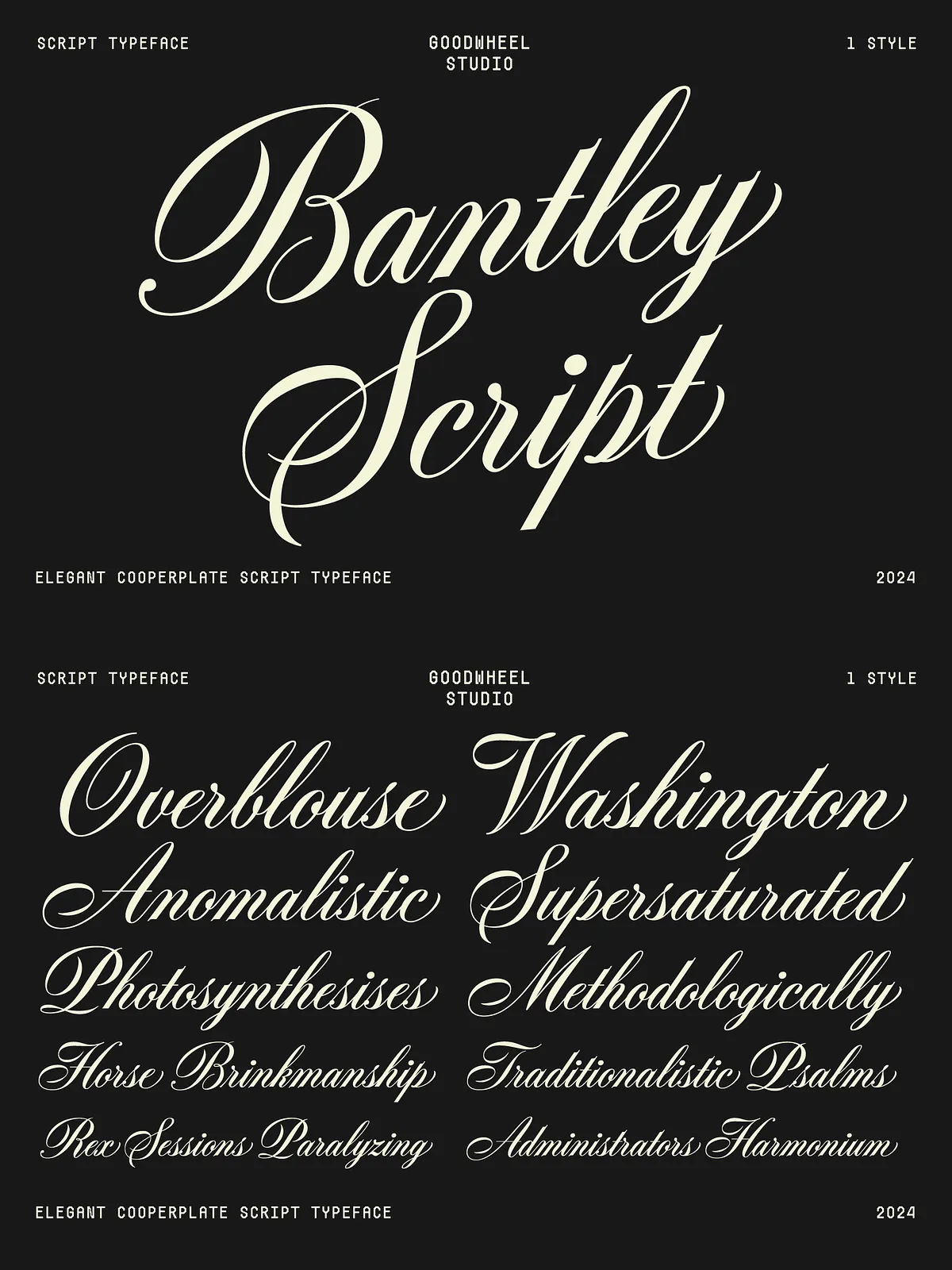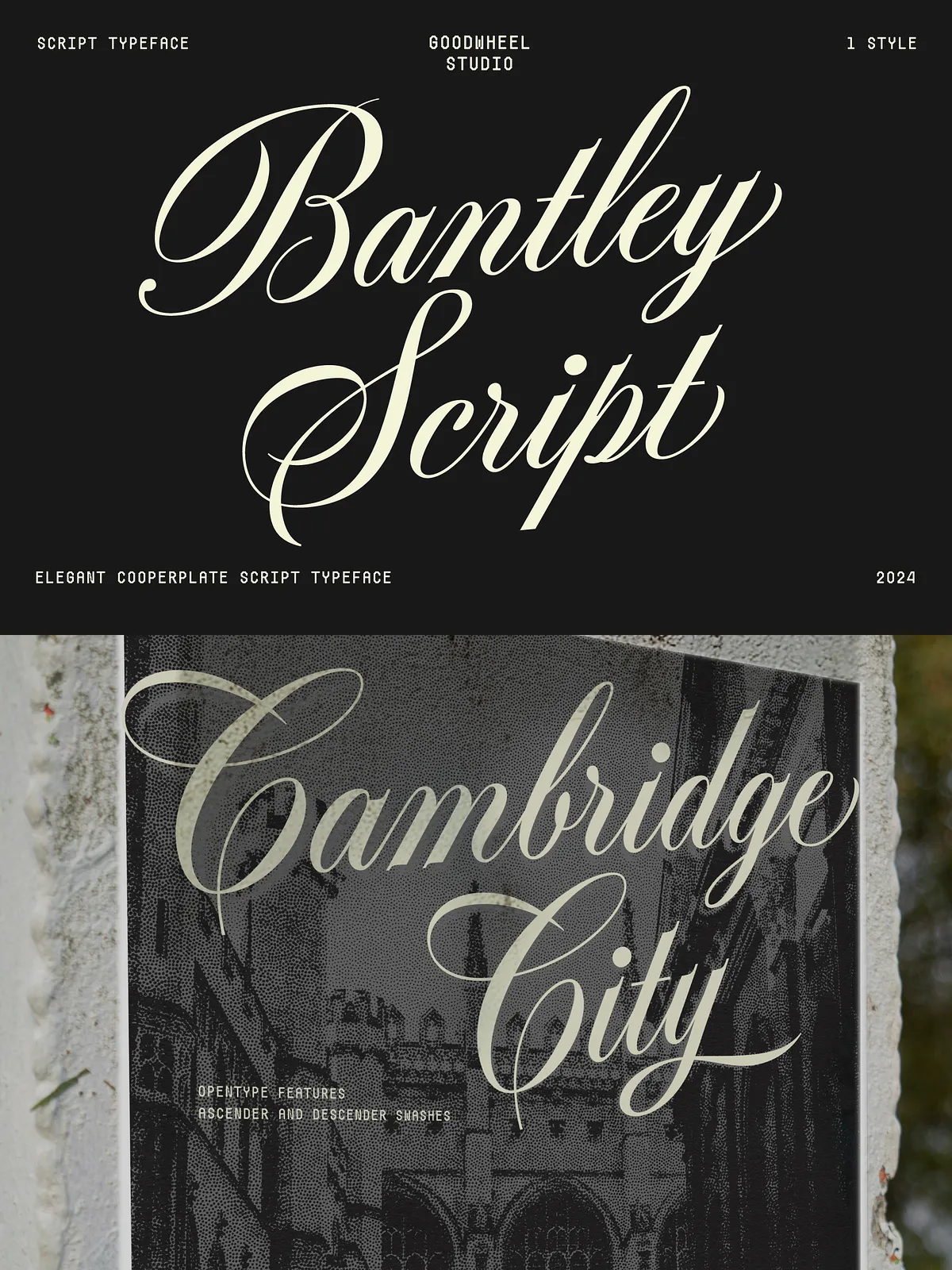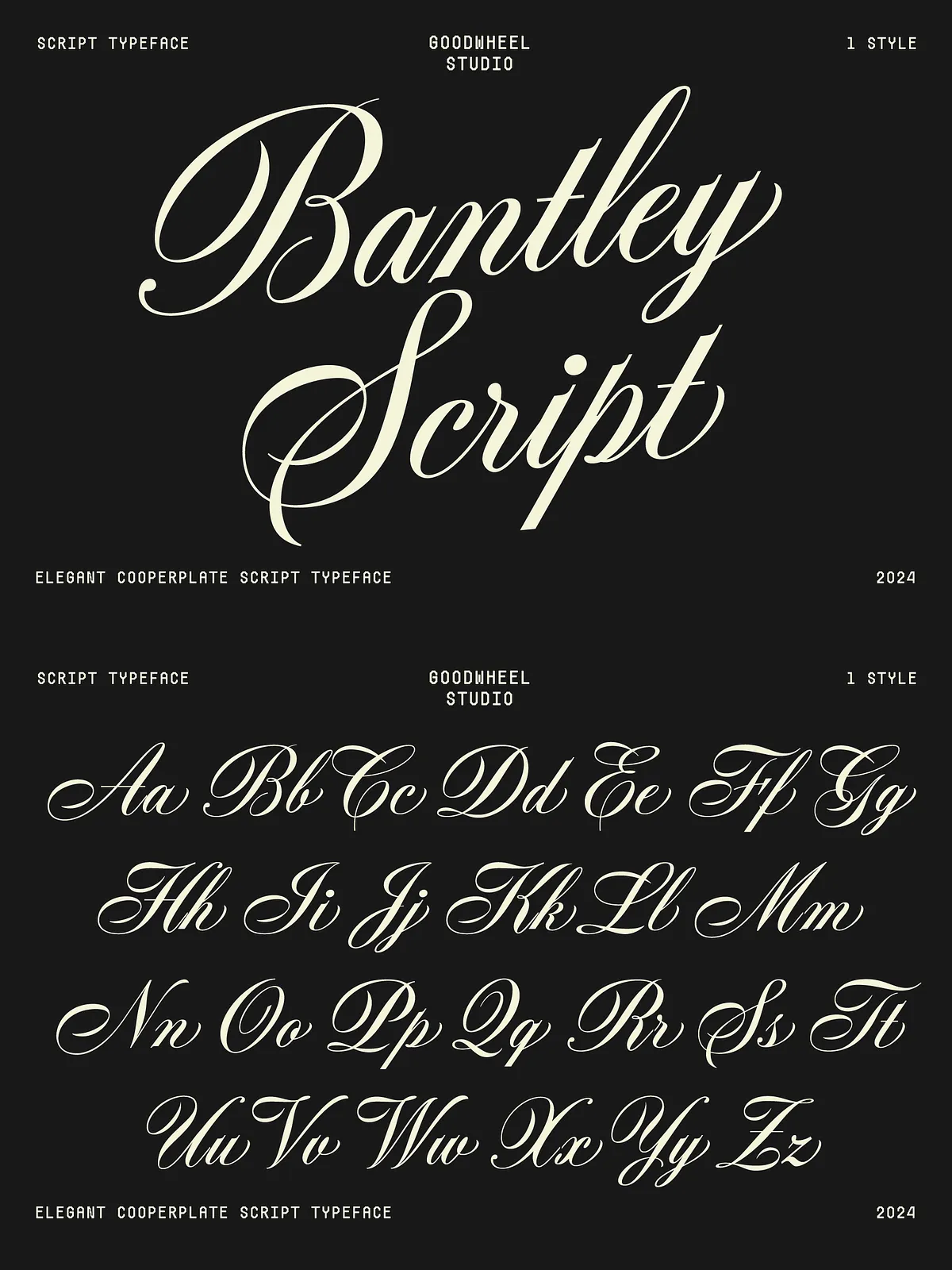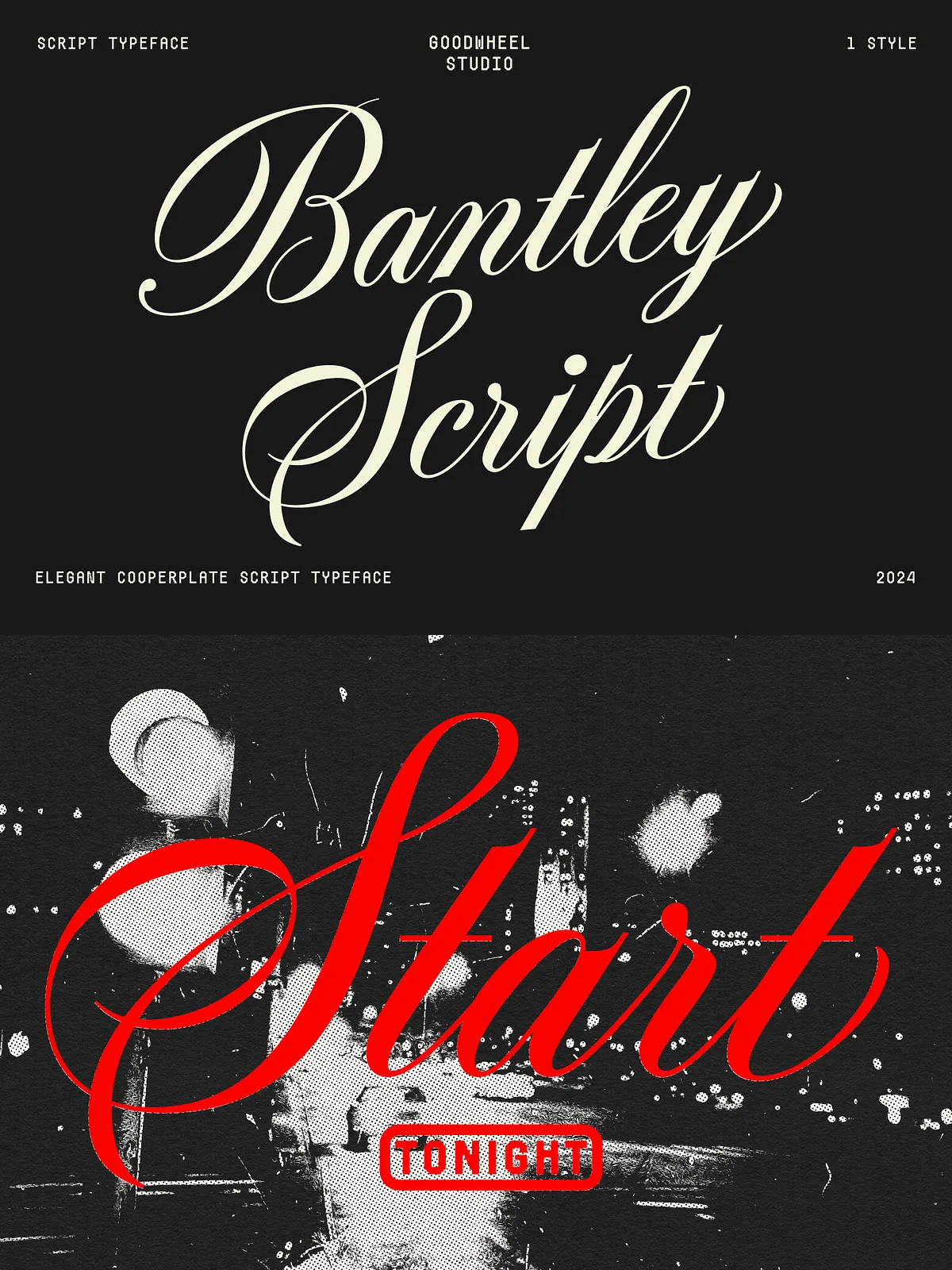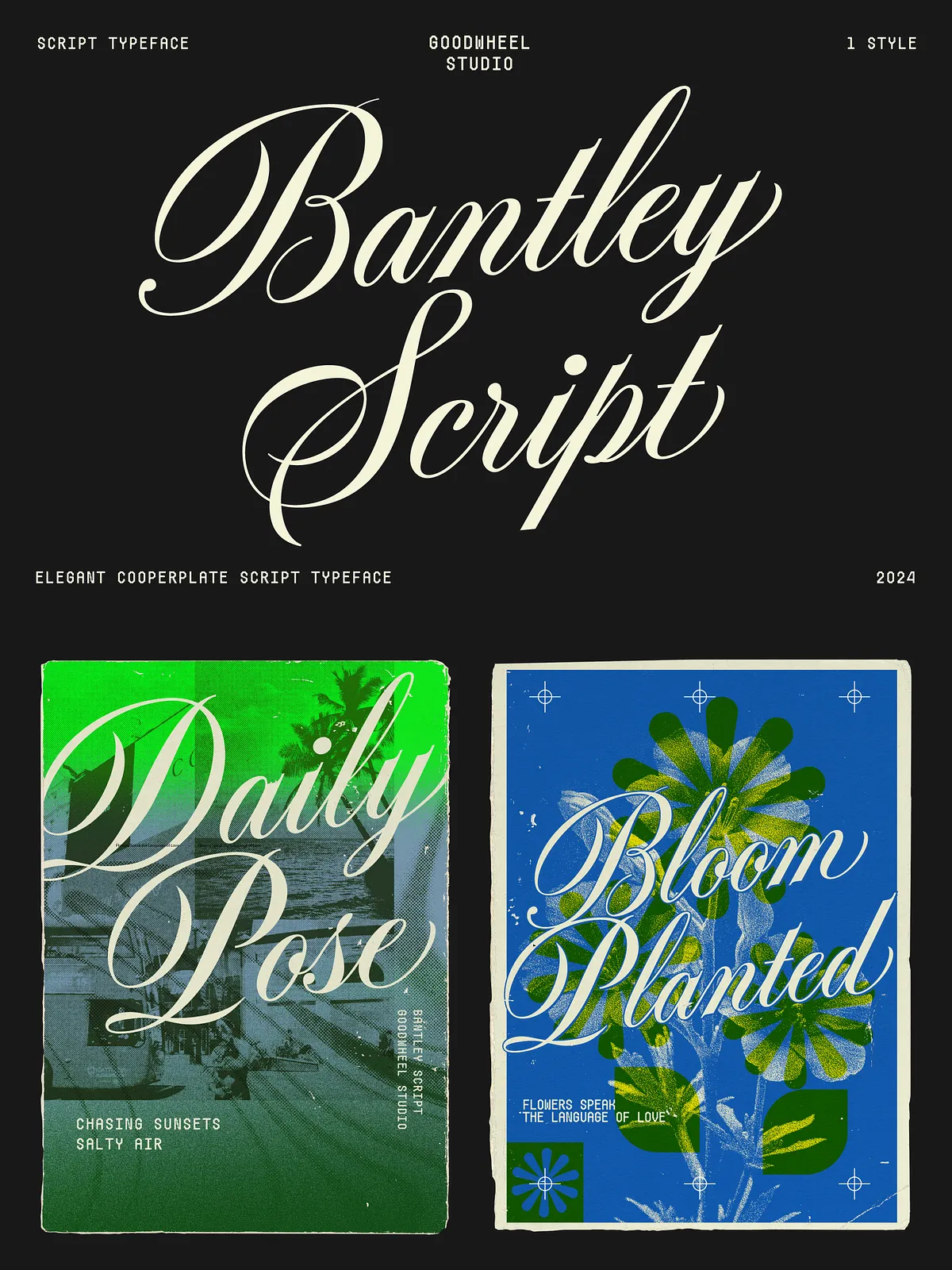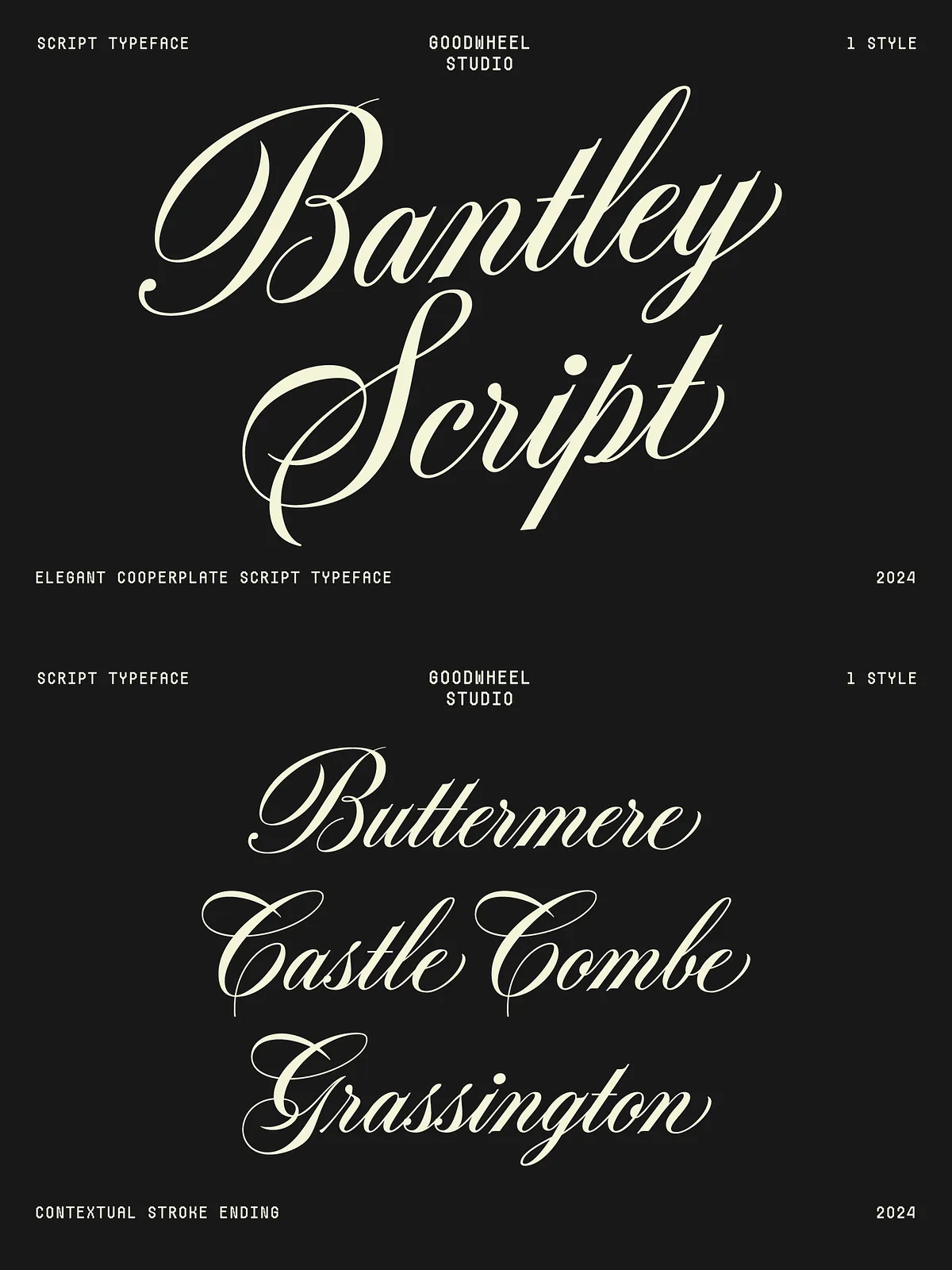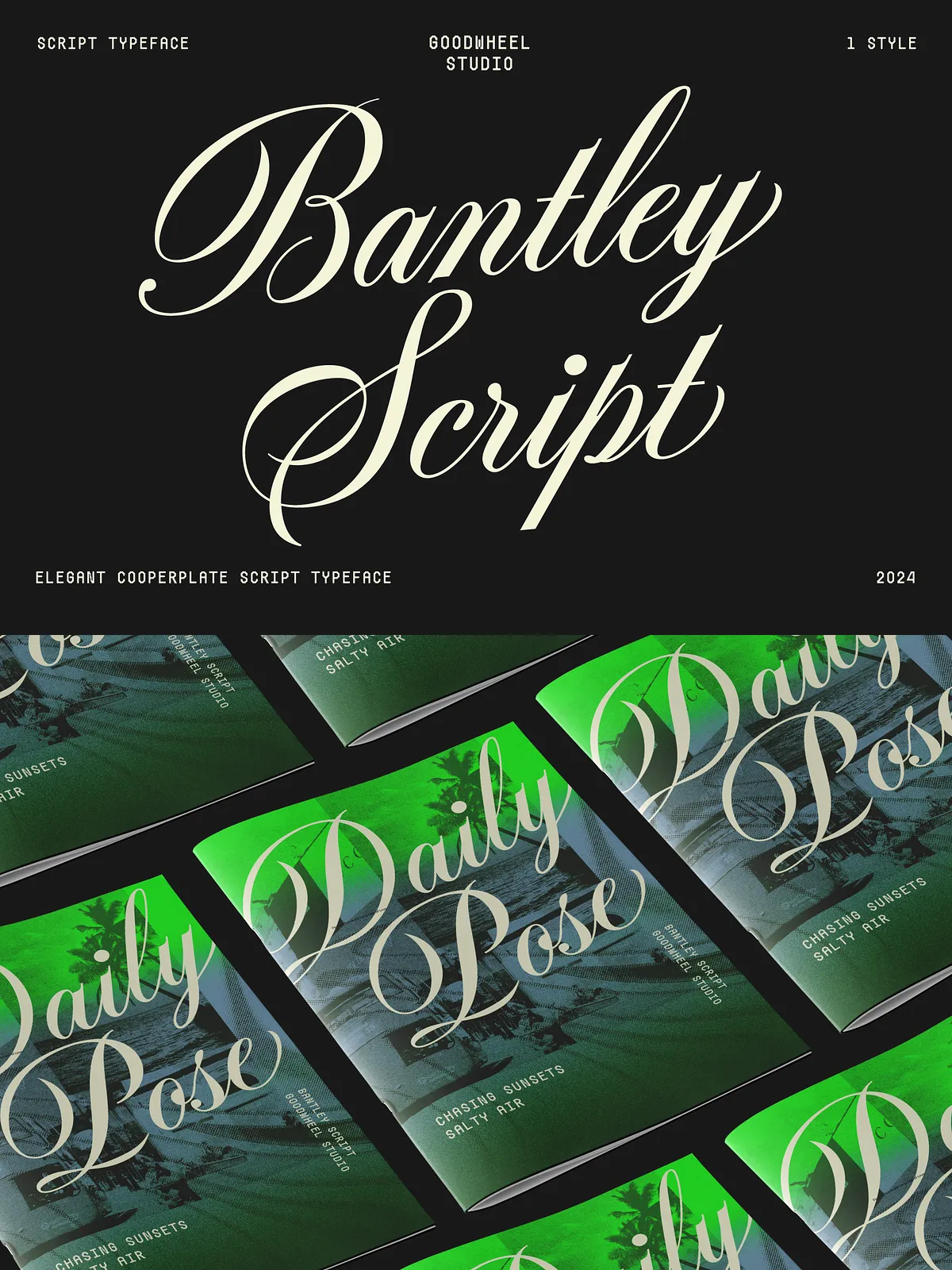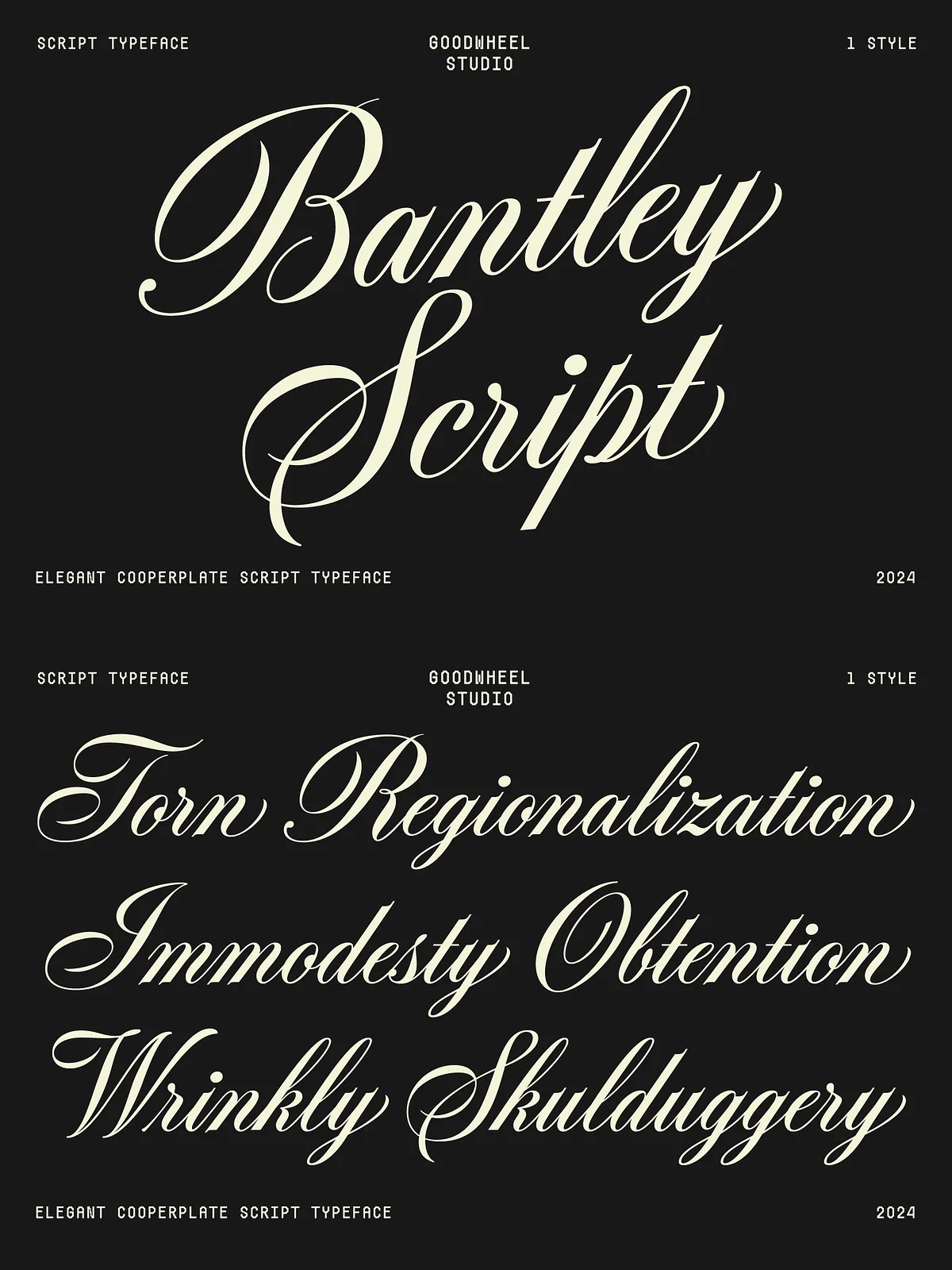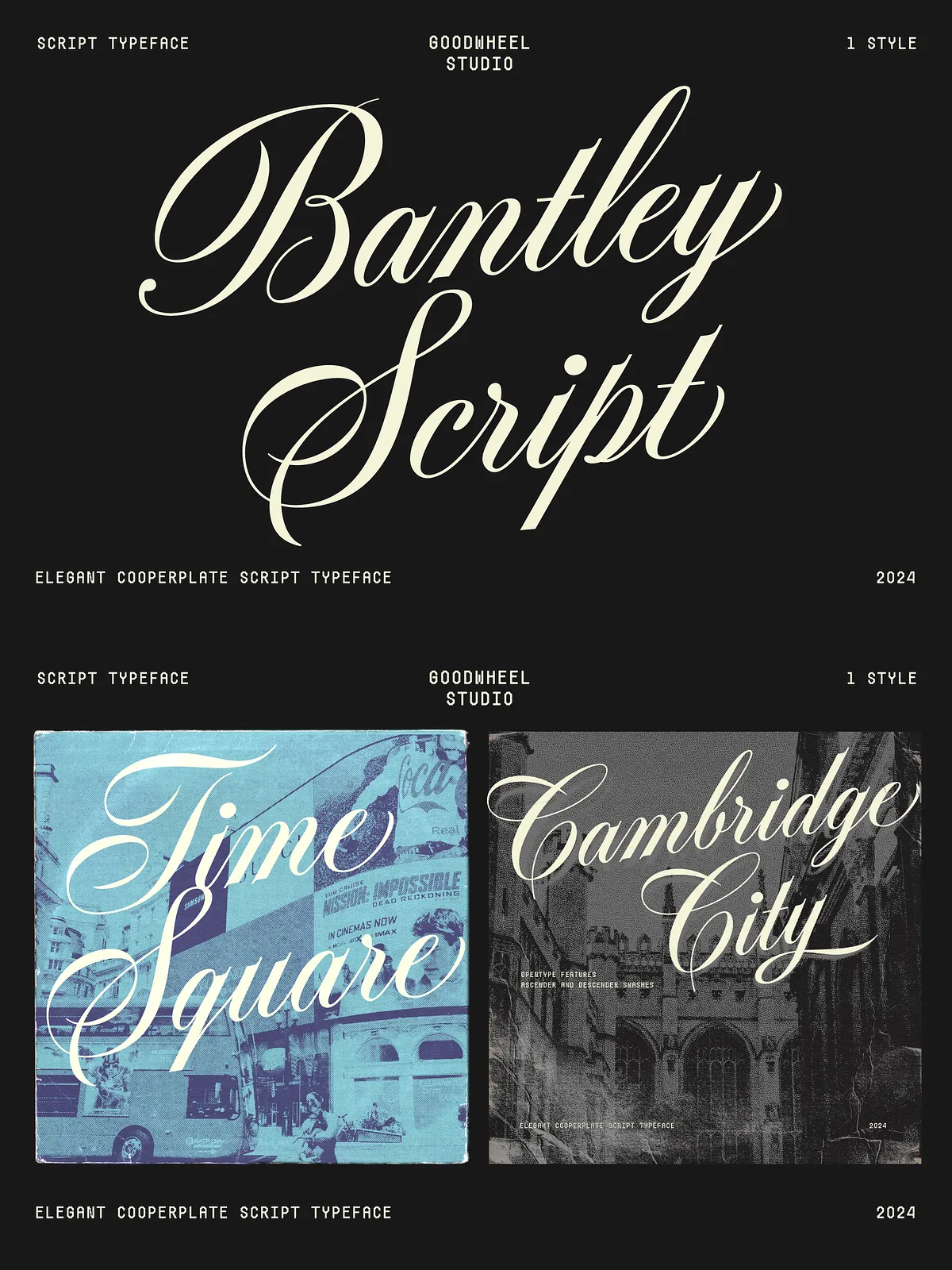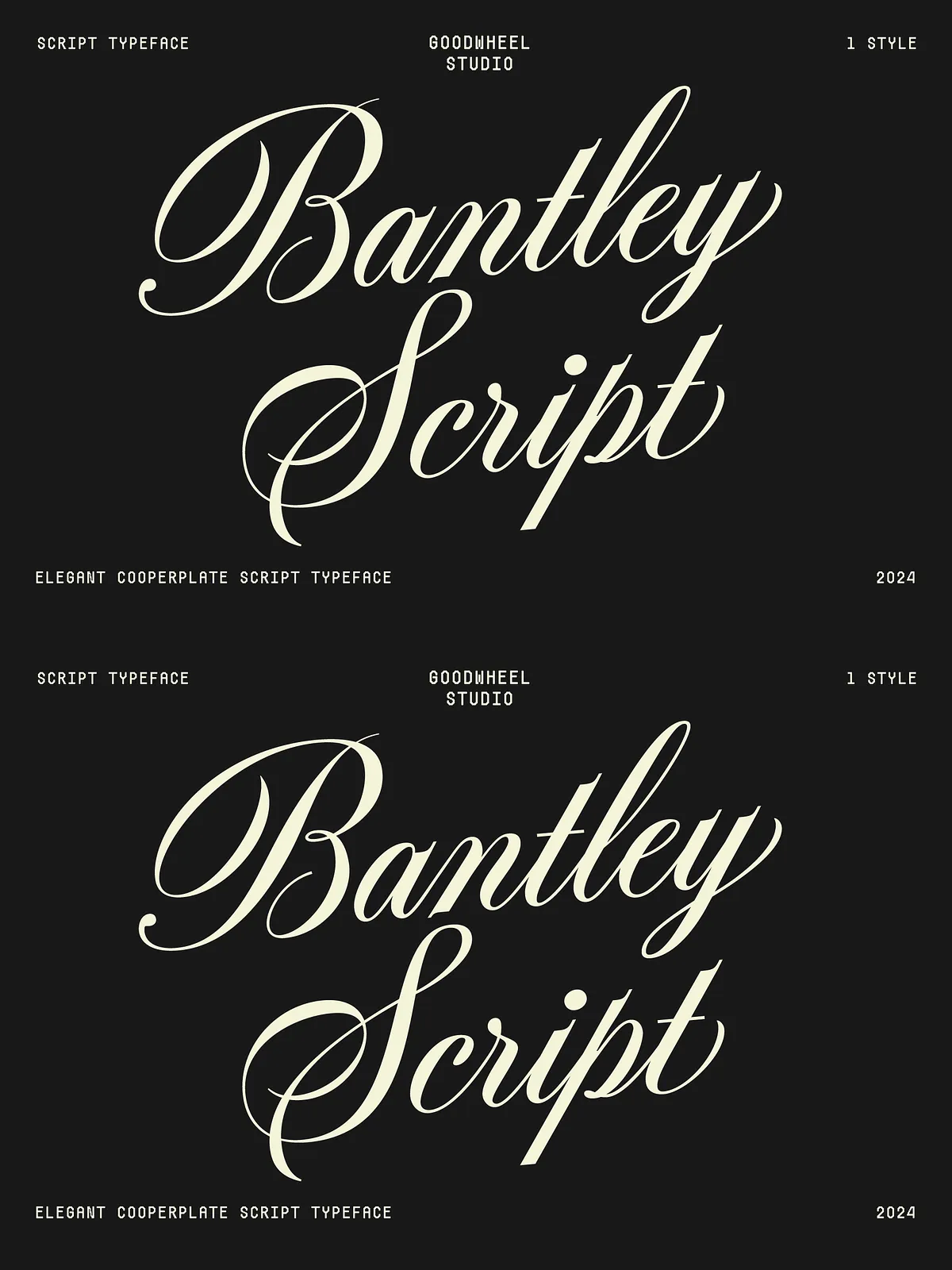
Unleash a wave of refined elegance in every project with Bantley Script. Inspired by classic Copperplate calligraphy, this typeface delivers luxurious swashes, meticulously crafted stroke endings, and intelligent contextual alternates that adapt to the surrounding letters. Whether you’re designing a premium logo, an eye‑catching headline, or a sophisticated brand identity, Bantley Script empowers you to create with confidence and style.
Key Features that Drive Design Excellence
Elegant Swashes and Refined Stroke Endings
Bantley Script captures the flowing beauty of hand‑drawn copperplate lettering. Each character is adorned with graceful swashes that add flair without overwhelming the composition. The refined stroke endings provide a polished finish, ensuring that every word feels deliberate and high‑end.
Contextual Alternates for Seamless Spacing
The font includes contextual alternates for the letters “n,” “m,” and “x.” These alternates automatically engage based on surrounding glyphs, delivering balanced spacing and a natural rhythm that mimics true calligraphic handwork. The result is a clean, readable text block that never feels cramped.
Ascender & Descender Swashes
Ascender and descender swashes extend the expressive range of the typeface, letting designers add dramatic flourish to uppercase letters and lower‑case tails. This feature is perfect for custom monograms, invitation cards, and luxury packaging where a touch of extravagance matters.
Fractions and Numerical Flexibility
Built‑in fraction glyphs enable precise typographic representation of measurements, prices, or ratios without resorting to separate fonts or graphic workarounds. This streamlines workflow and maintains visual consistency across numeric content.
Comprehensive Character Set & Language Support
Ideal Use Cases to Elevate Your Projects
Logo Design
Craft memorable logos that exude sophistication. The elegant swashes and contextual alternates give each brand mark a handcrafted feel, ideal for luxury goods, boutique services, and high‑end personal brands.
Headlines & Editorial Layouts
Use Bantley Script for striking headlines, pull quotes, and mastheads in magazines, books, or online publications. Its bold presence commands attention while maintaining readability.
Invitations and Event Materials
Design wedding invitations, gala programs, and corporate event collateral with a touch of classic charm. The ascender and descender swashes add a ceremonial flourish that resonates with guests.
Packaging and Product Labels
Elevate product packaging with premium typography. Whether it’s a perfume label or a limited‑edition box, Bantley Script conveys an aura of exclusivity that can influence purchasing decisions.
When you need a typeface that blends timeless copperplate elegance with modern functionality, Bantley Script is the definitive choice. Its swash‑rich design, intelligent alternates, extensive language support, and versatile licensing make it an indispensable tool for designers seeking to impart luxury and sophistication. Integrate Bantley Script today and watch your branding, editorial, and promotional materials rise to a new level of visual excellence.